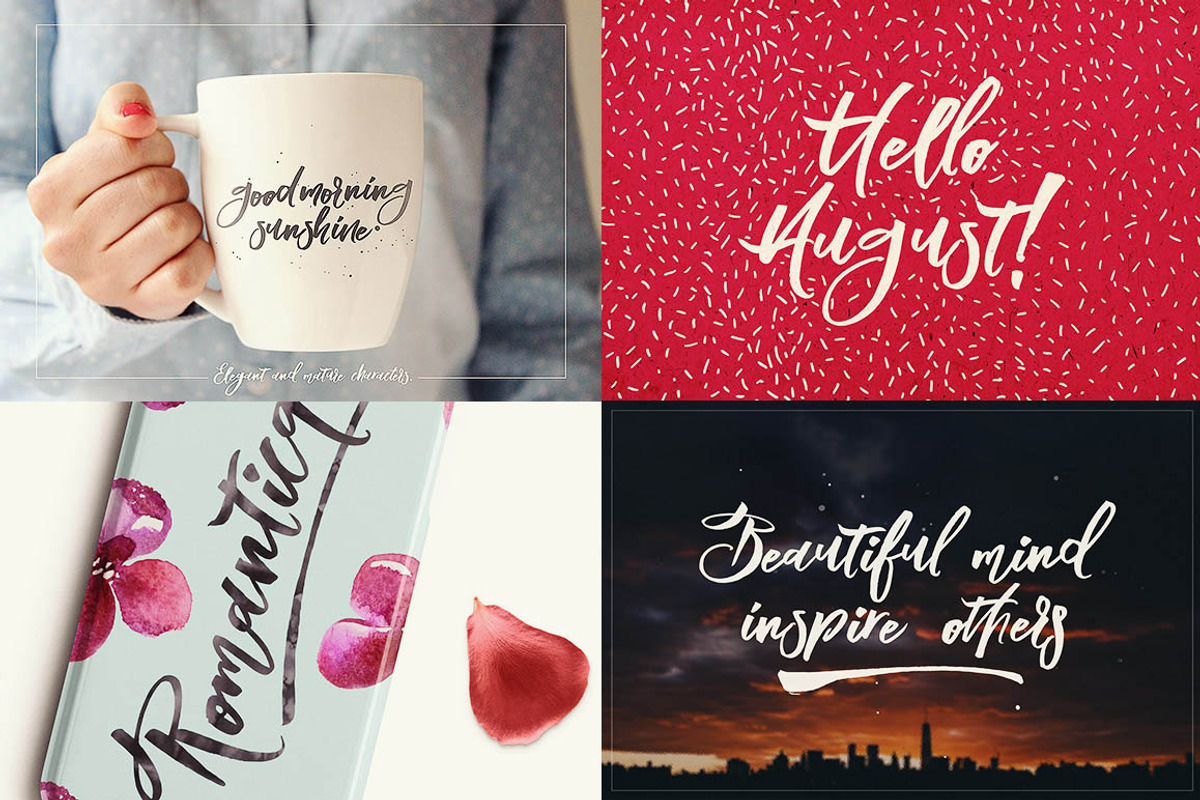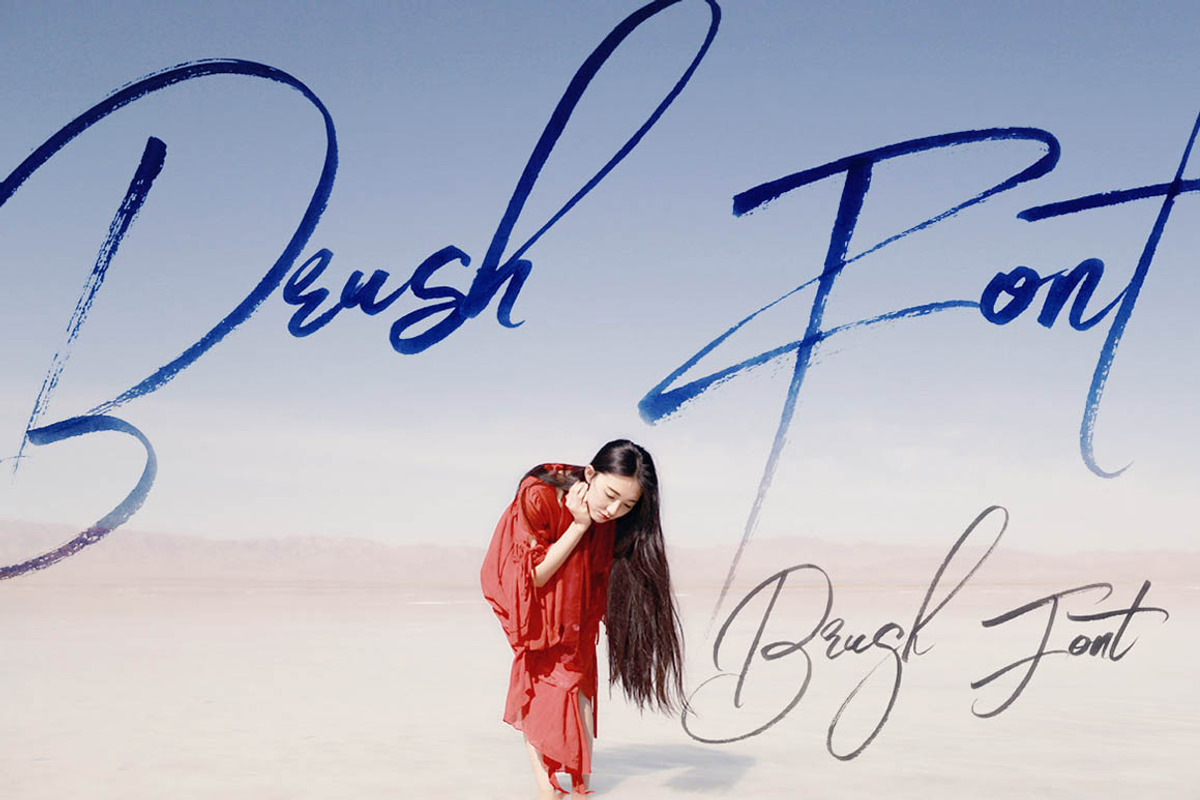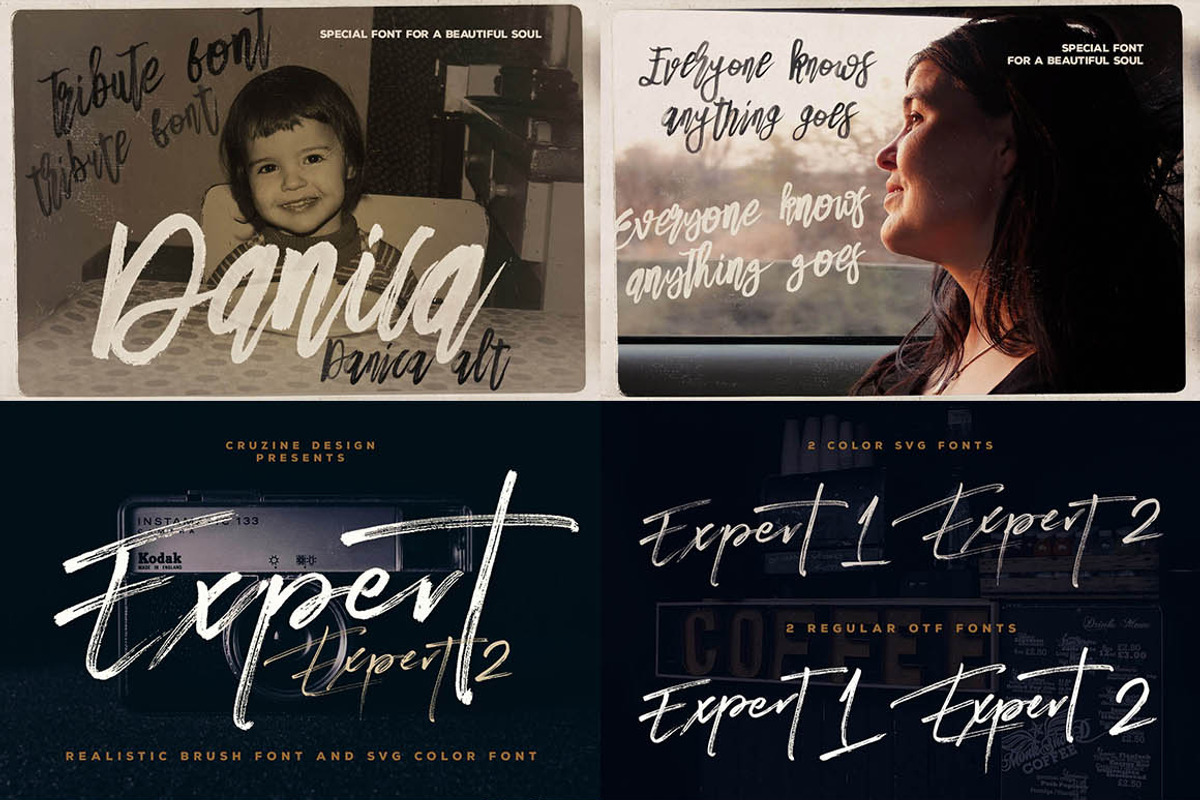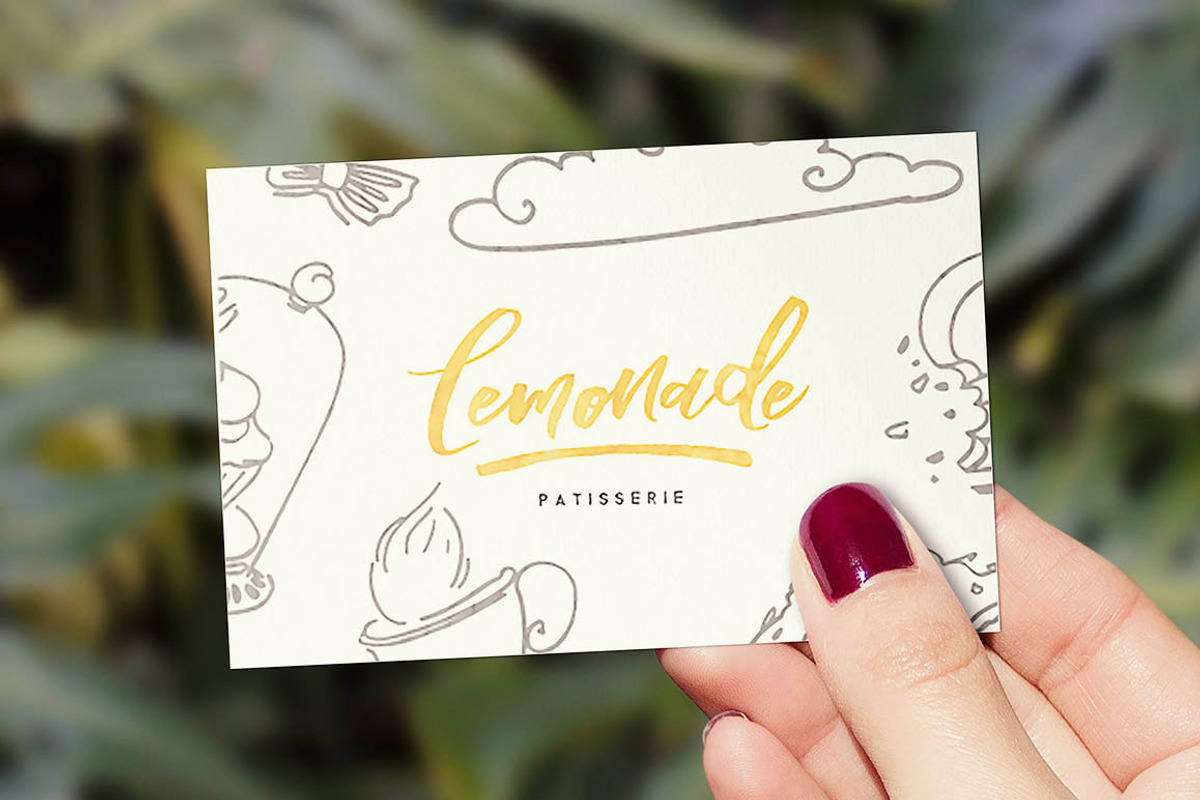
SALE Handwritten Script Fonts
Need a creative & unique fonts for your new custom project? No problem at all ;) You’ll find here 50 amazing fonts in 18 font families with cool script & brush fonts! Also 15 realistic brush (OpenType-SVG fonts) & 4 extra graphics sets are included in this bundle!
18 font families with 50 fonts + 15 SVG realistic brush fonts
Extra graphics in 4 sets
Why SALE Handwritten Script Fonts is worth a look
SALE Handwritten Script Fonts by Cruzine fits naturally into Branding, posters, packaging, typography.